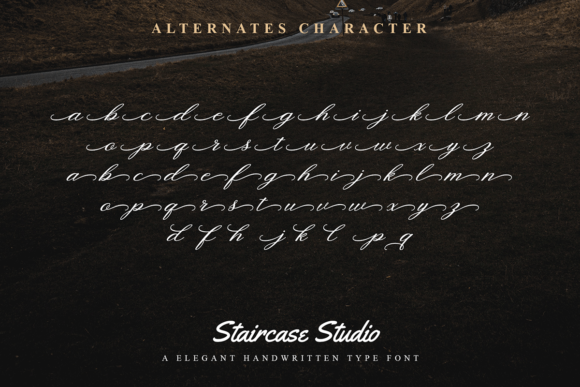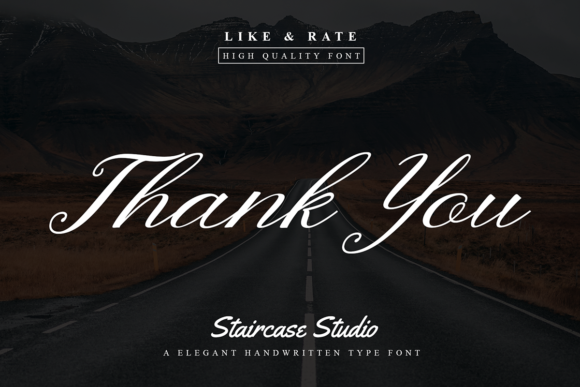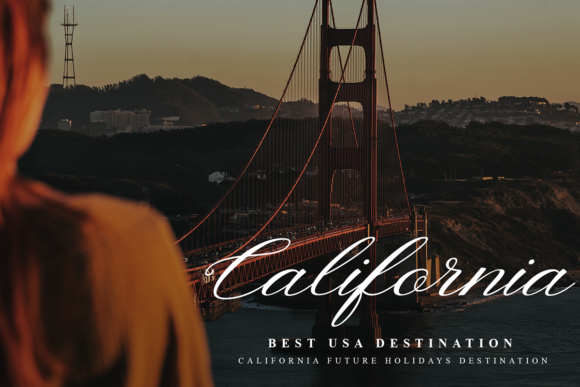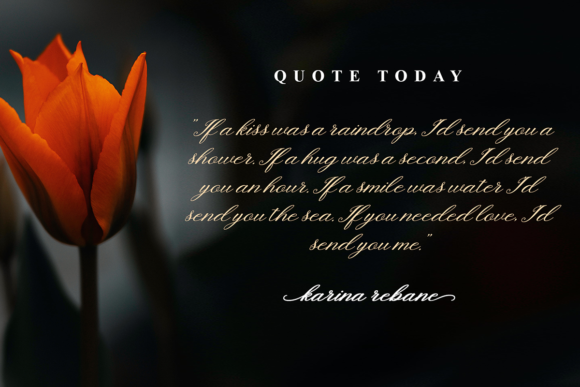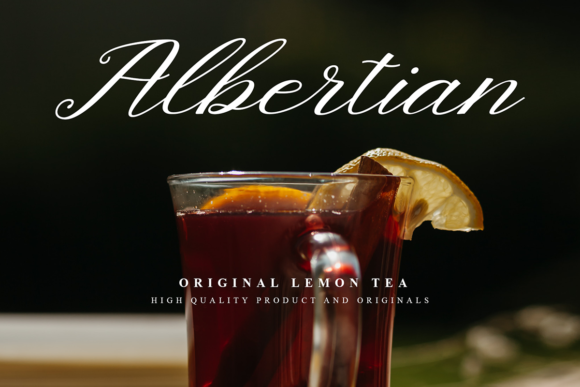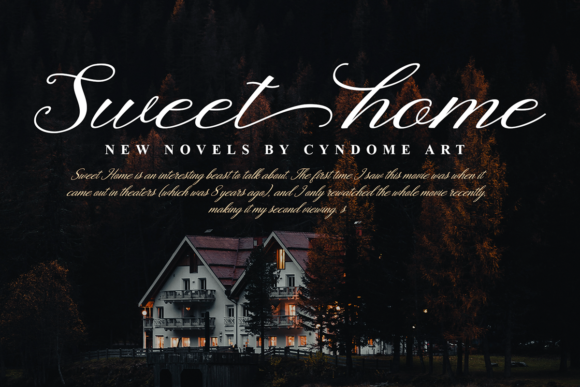
Newline Font
About Newline Font
Newline is a charming and alluring script font. It is PUA encoded which means you can access all glyphs and swashes with ease! Add it confidently to your favorite creations and let yourself be amazed by the outcome generated.